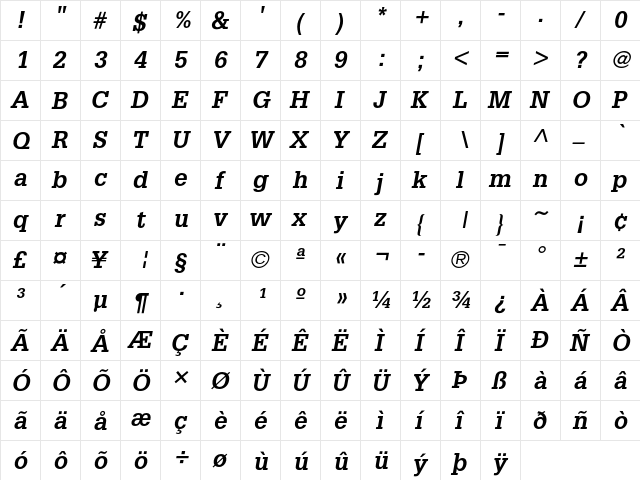
Glypha 65 Bold Oblique Font Preview
Design Context for Glypha Typeface
Glypha takes a measured approach to typography — its balanced proportions and neutral character make it a reliable workhorse for both digital and print work. Its italic angle brings a sense of urgency and motion to the letterforms. Its bold stroke weight gives it real presence on the page.
Pro Tip: Try Glypha for annotation and caption copy alongside an upright companion — the contrast in angle creates a dynamic but ordered typographic system.